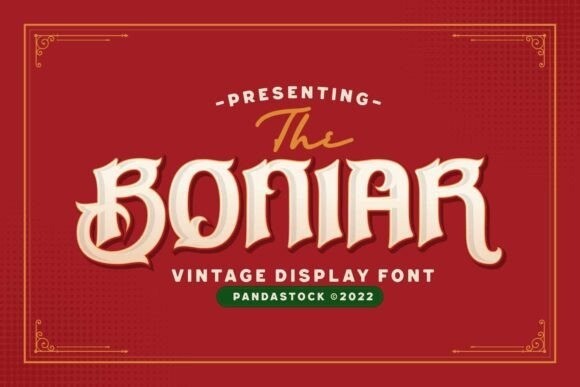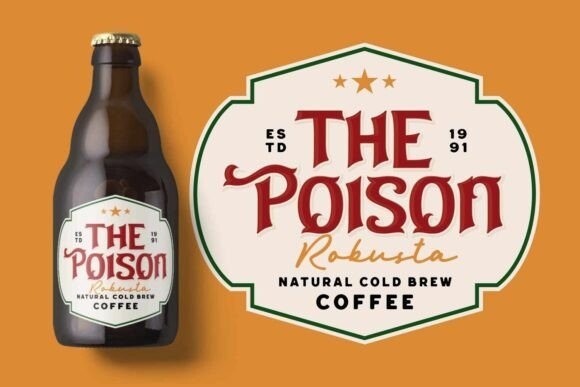
Boniar Font
Boniar is a stylish and elegant display font. This bold, unique, and vintage font can easily become your favorite. It can be used for books, magazine covers, social media posts, invitations, and so much more! So add this to your creations and take your designs to the next level